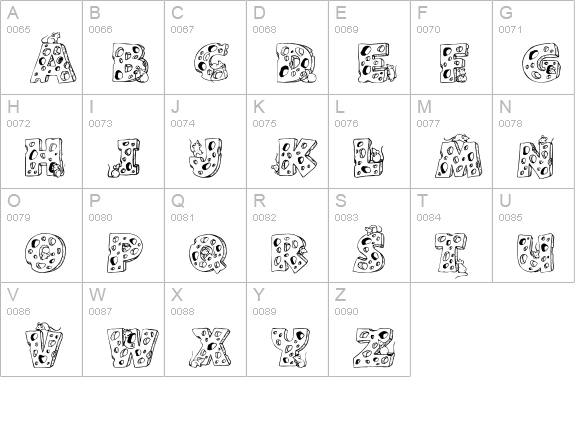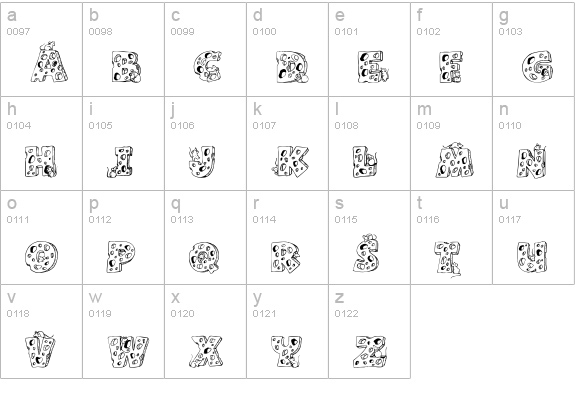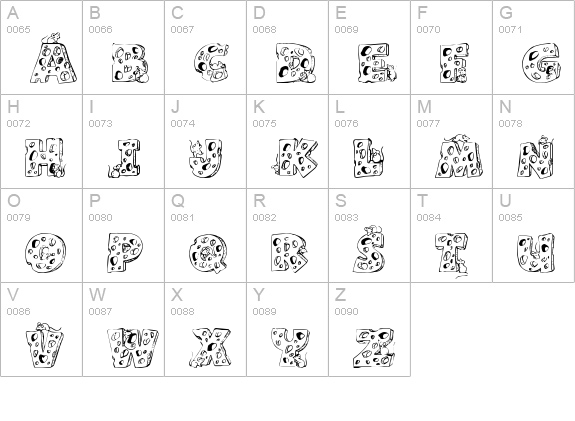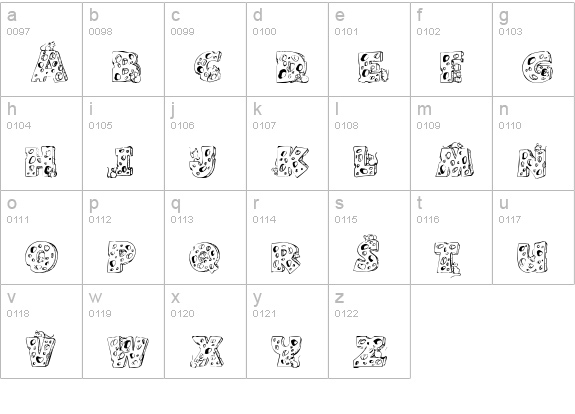
Cheese and Mouse Font Details
Cheese and Mouse font is a whimsical and playful typeface that captures the essence of fun and creativity. With its charming and quirky design, this font is perfect for adding a touch of personality to your projects. Whether you're working on a children's book, a birthday invitation, or a branding project, Cheese and Mouse font will surely bring a smile to anyone's face. The best part about Cheese and Mouse font is that it is completely free to download at FontsMarket.com. Yes, you read that right - this delightful font can be yours at no cost! So why wait? Add Cheese and Mouse font to your collection today and let your imagination run wild with its playful charm.